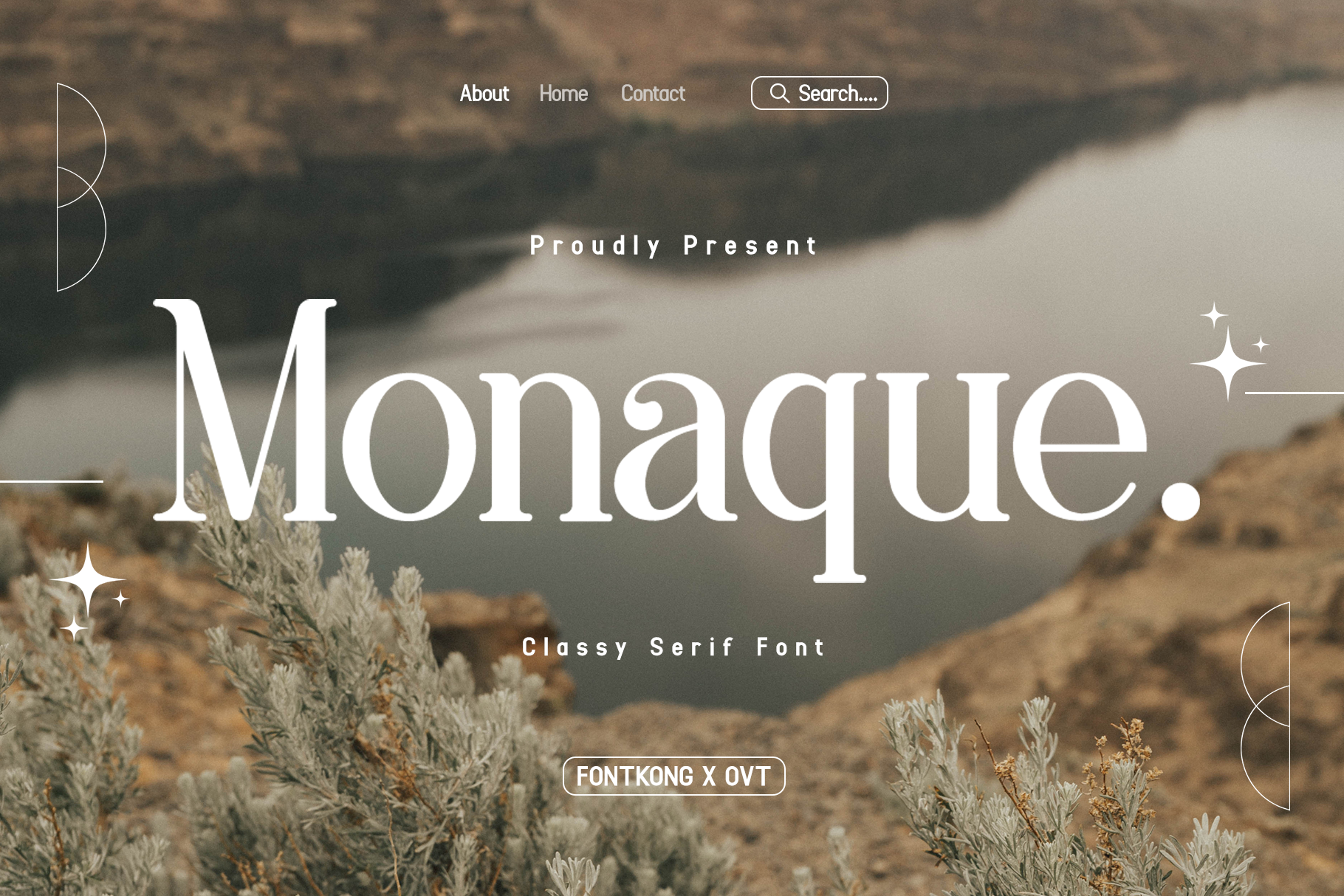
Monaque - Classy Serif Font
Introducing "Monaque," a classy serif font that exudes timeless elegance and sophistication. Perfect for graphic designers, typographers, and creatives seeking to add a touch of refinement to their projects, Monaque offers a graceful and polished aesthetic ideal for any high-end design.
Ideal for luxury branding, editorial layouts, wedding invitations, elegant packaging, and upscale advertising, Monaque’s refined and stylish characters convey a sense of grandeur and professionalism. Each letter is meticulously crafted to ensure excellent readability while maintaining a distinguished and classic appearance, making your designs both captivating and elegant.
The "Monaque" font includes a complete set of uppercase and lowercase letters, numbers, punctuation marks, and special characters. This versatile set allows for seamless integration into various design applications, from sophisticated branding to polished editorial layouts.
Elevate your designs with the timeless elegance of Monaque, the classy serif font that brings a touch of grandeur to every glyph.